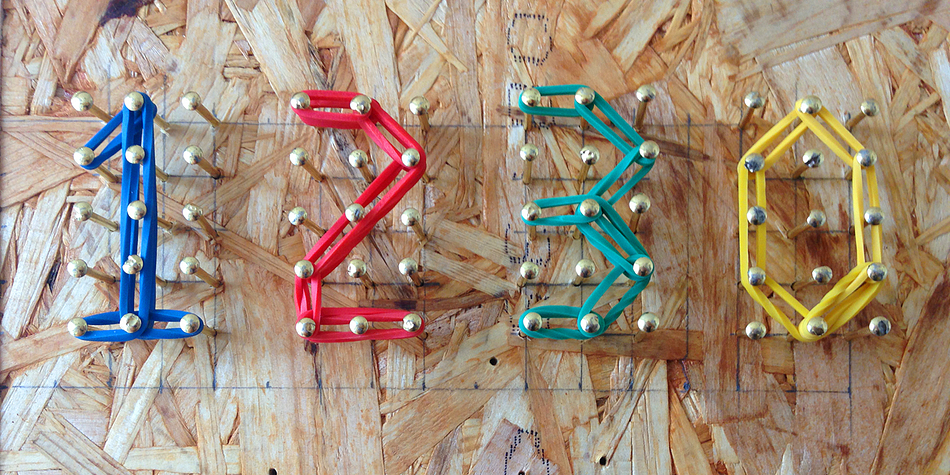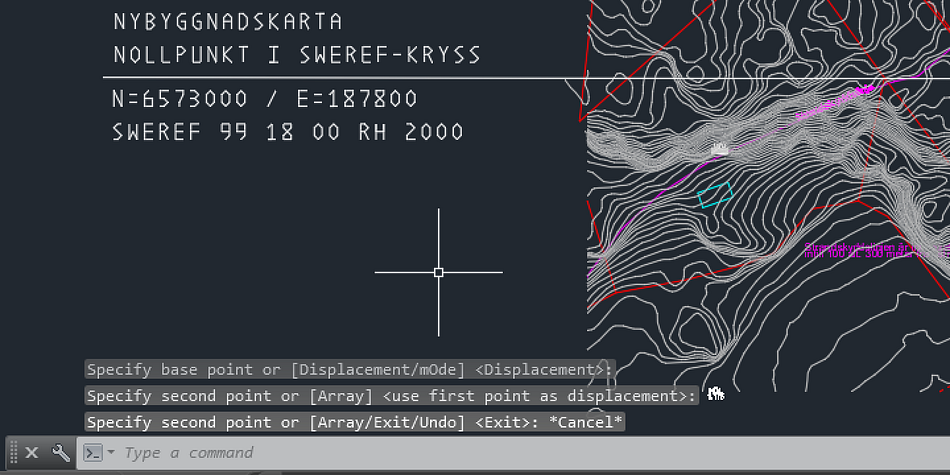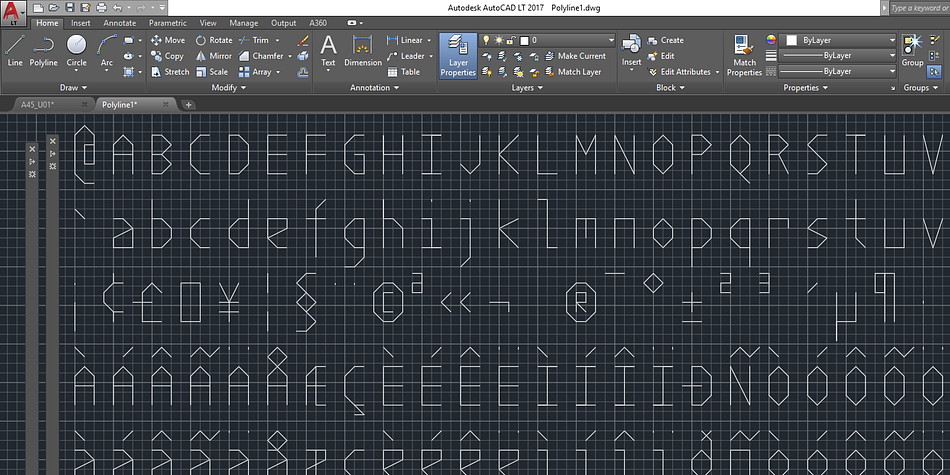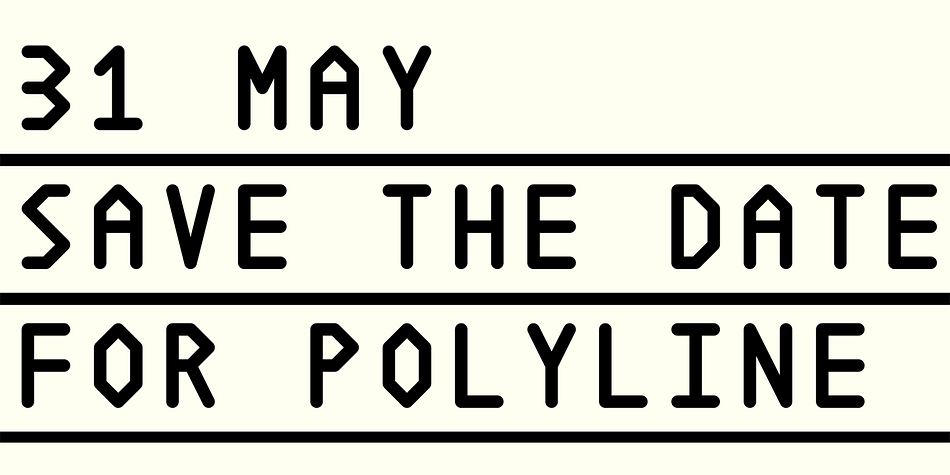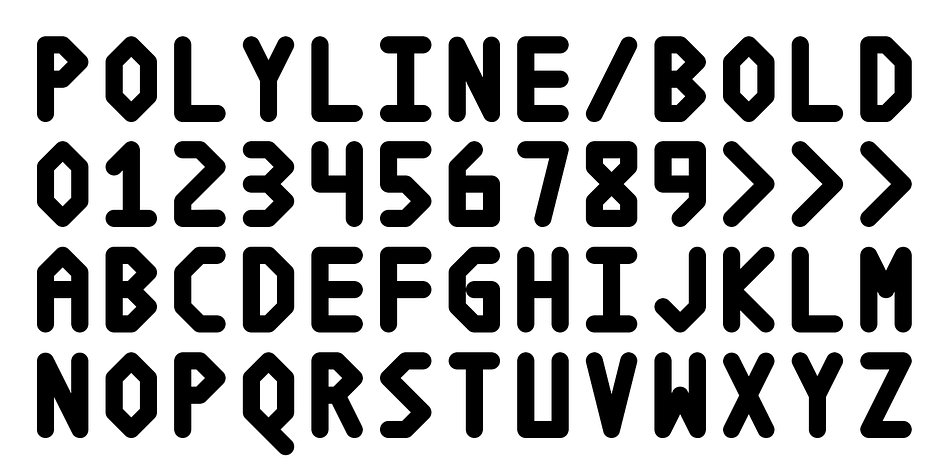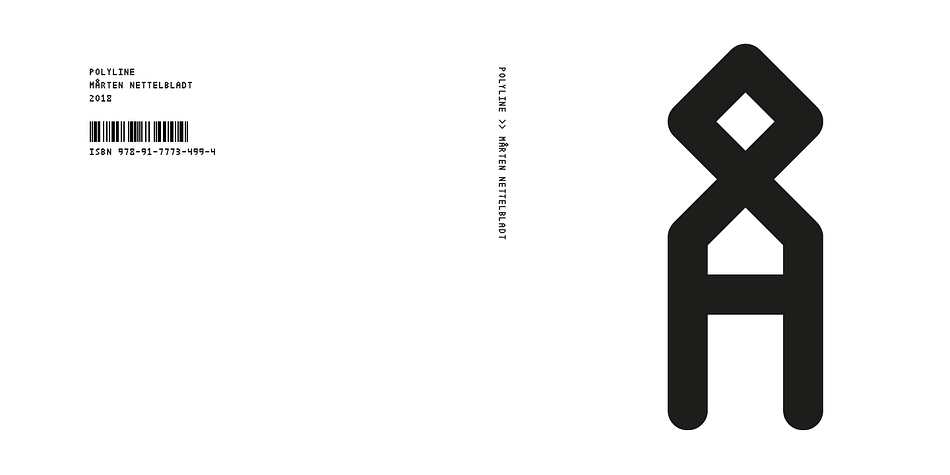
Designed by Mårten Nettelbladt, Polyline is a typewriter font family. This typeface has five styles and was published by Mårten Nettelbladt.
Polyline is based on a small 3x5 grid giving it a rather crude and technical look, further emphasized by the monospacing.
Polyline is a command often found in CAD-software to create a series of connected lines.